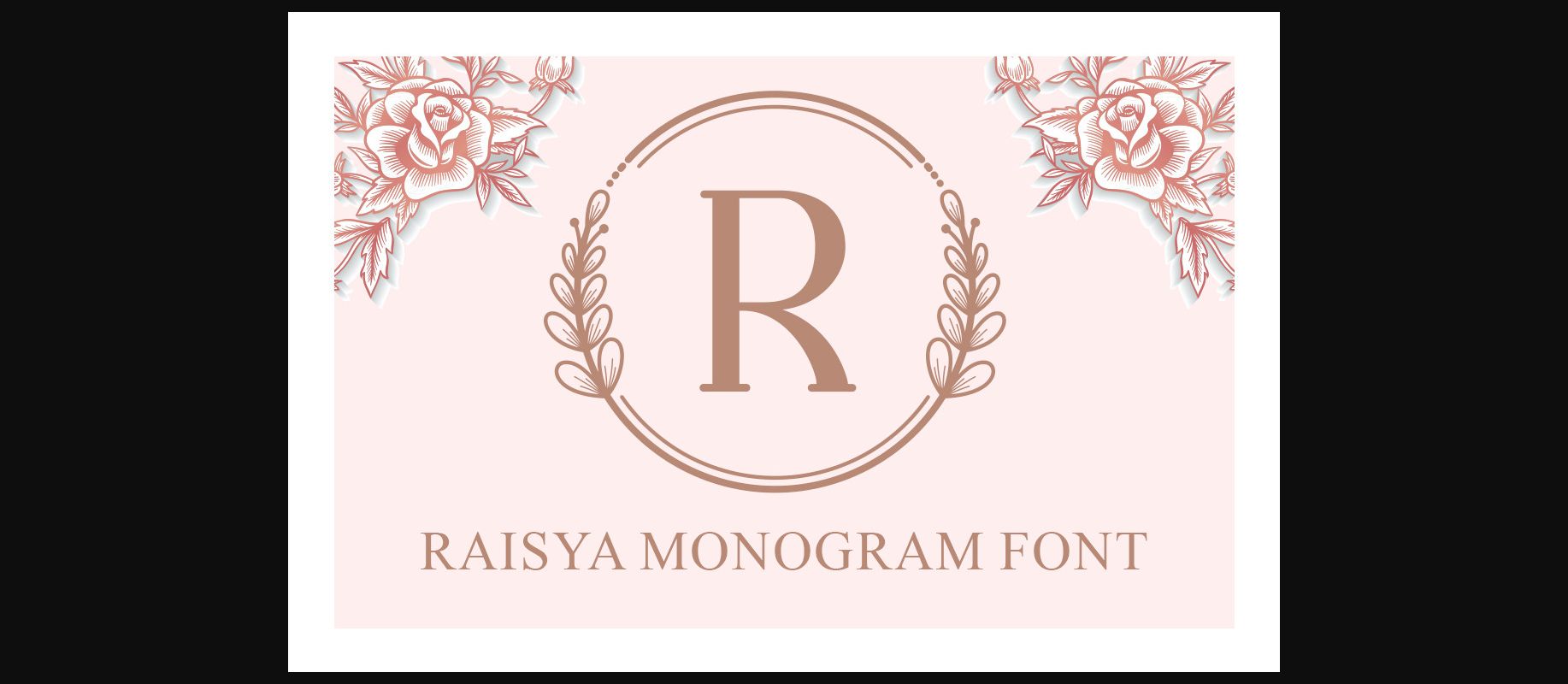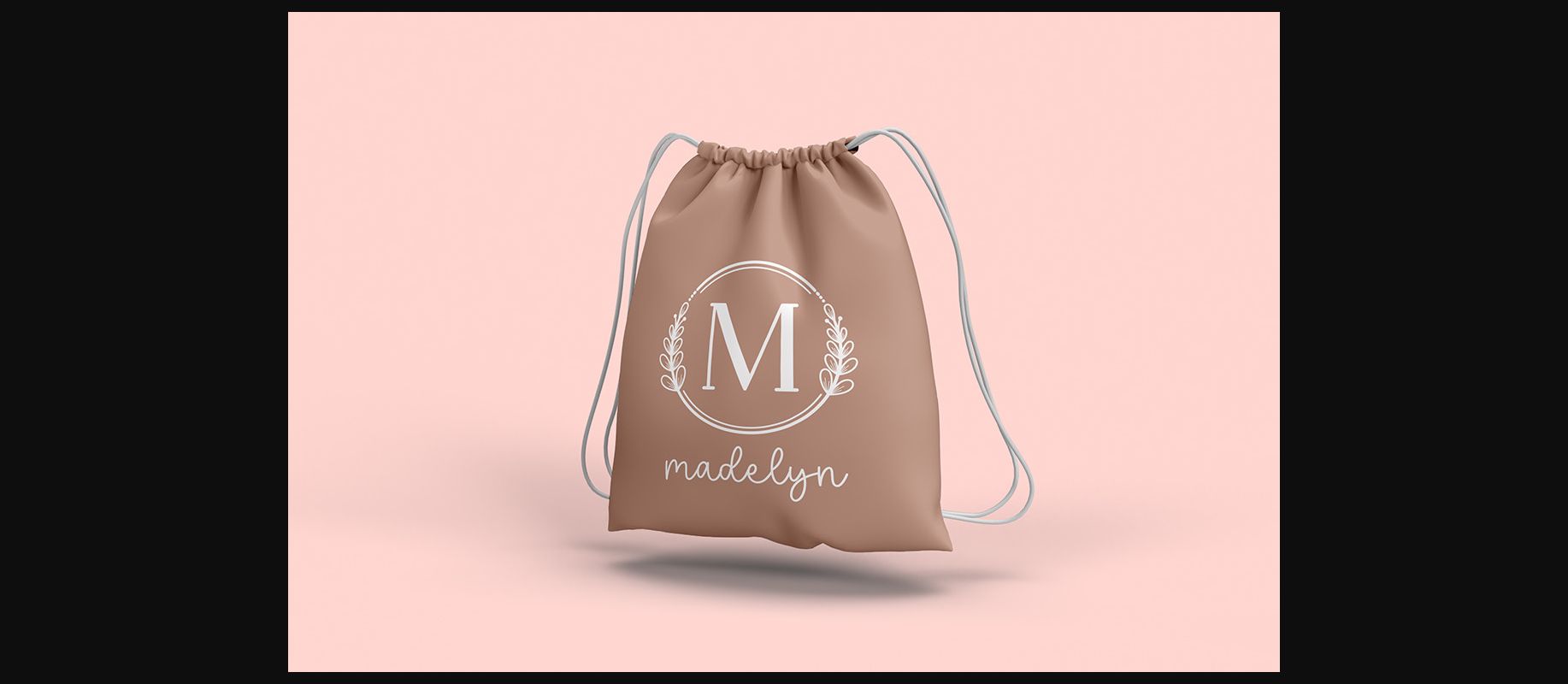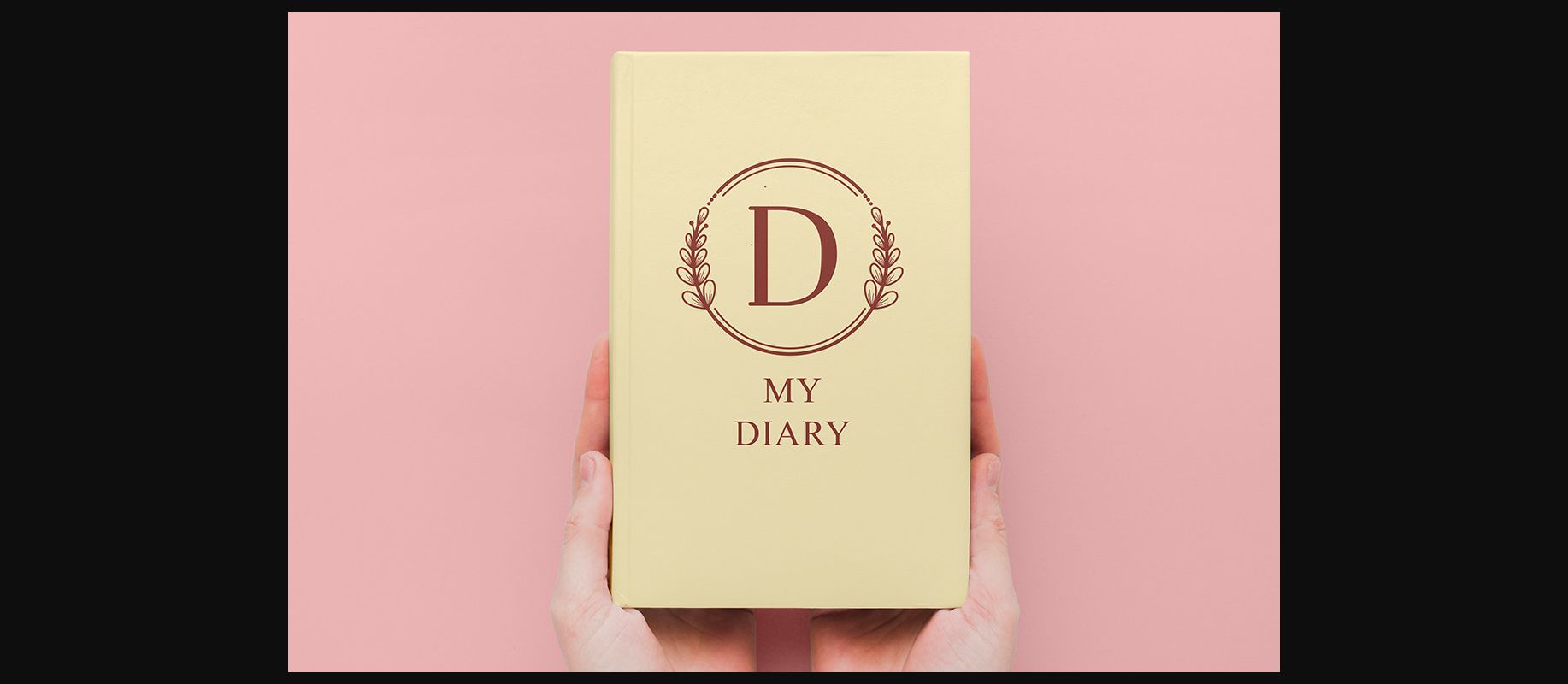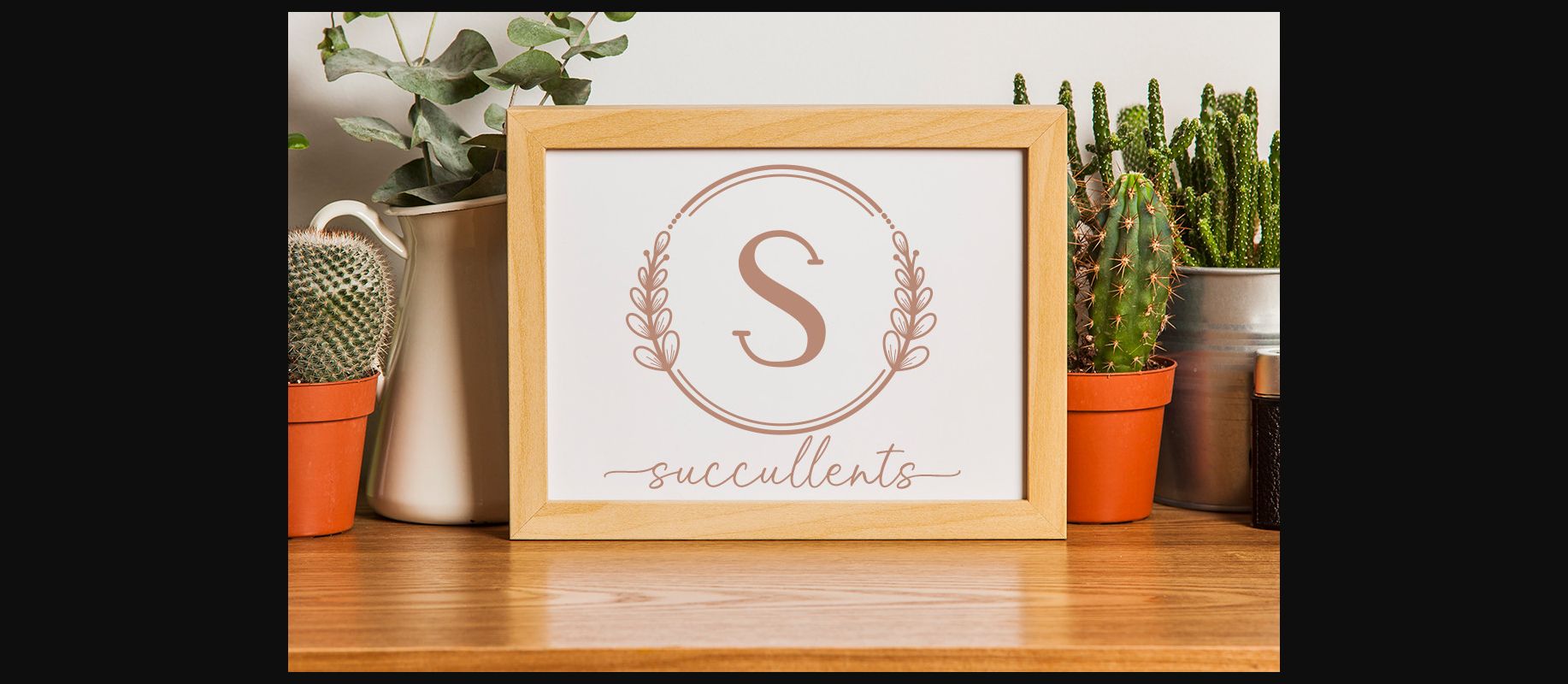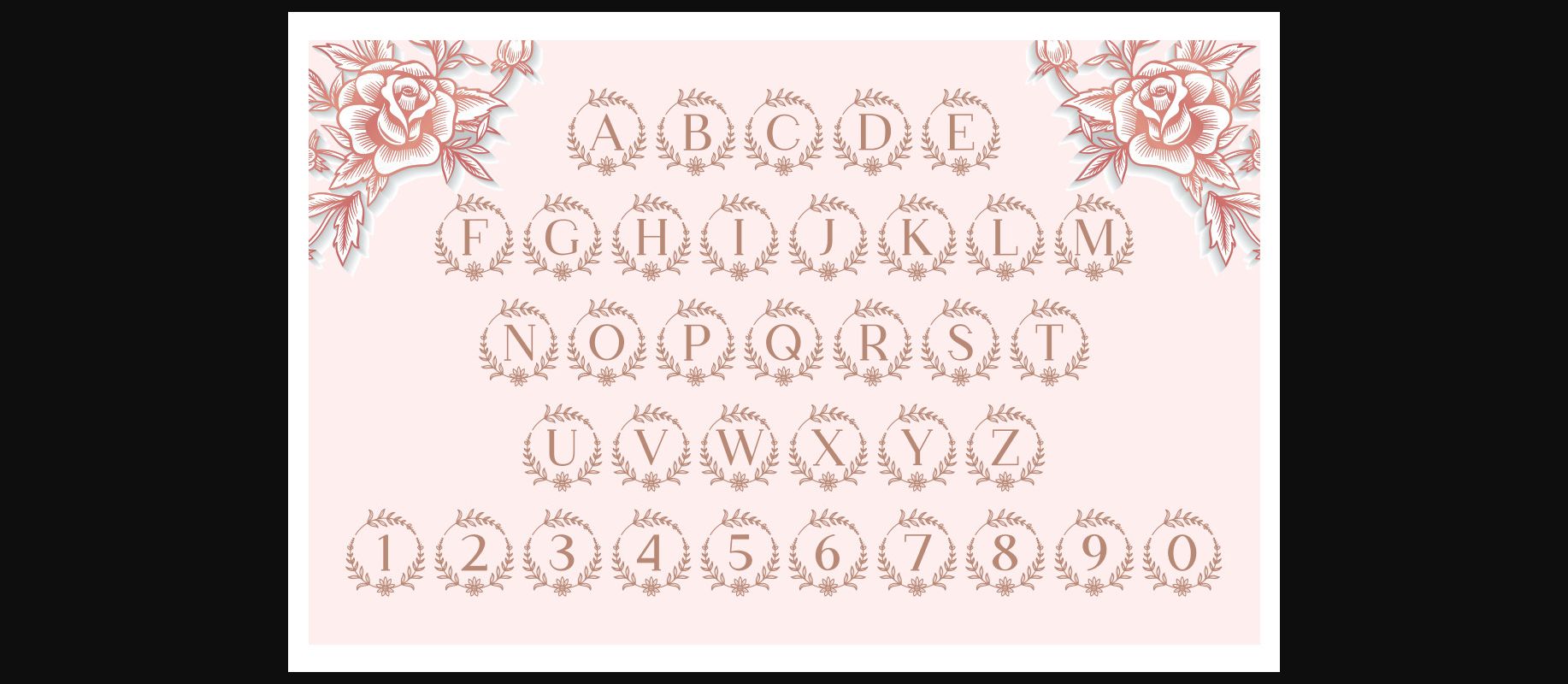
About Raisya Font
Raisya is a genuine, delicate and clean decorative font.
Use it for a wide range of design occasions such as logos, apparel, photography, watermarks, quotes, blog headers, posters, weddings, invitations, stationery, branding, and much more.